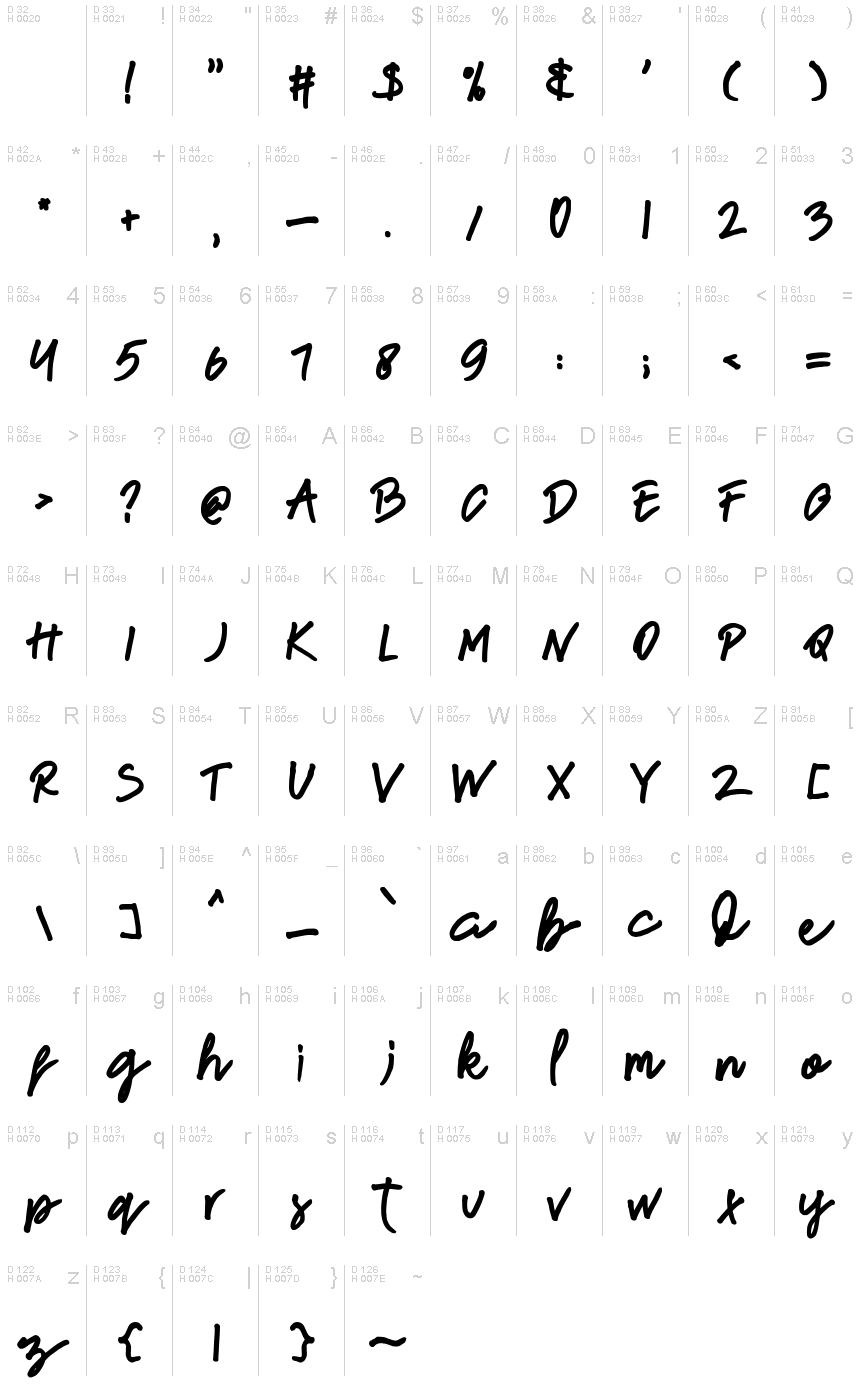
newfrench
New French is a vibrant, handwritten font that exudes a touch of Parisian charm. Crafted by designer Andika Fez, this font boasts a delightful blend of flowing lines and playful flourishes, creating a sense of effortless elegance. The fluid strokes and organic feel lend themselves beautifully to a wide range of design applications, from invitations and stationery to branding and editorial layouts.
Whether you're seeking to inject a touch of sophistication or imbue your work with a sense of whimsy, New French is a versatile and captivating choice that is sure to leave a lasting impression.